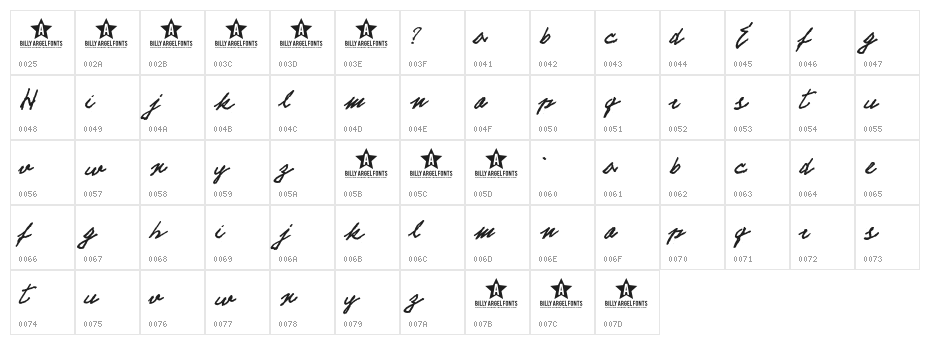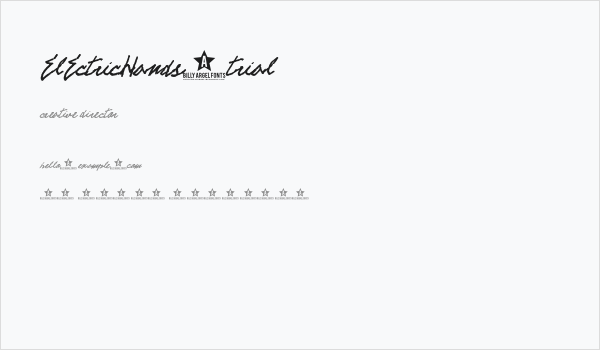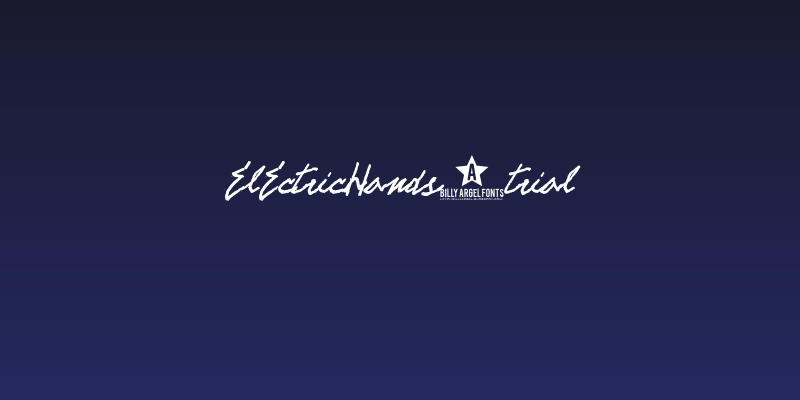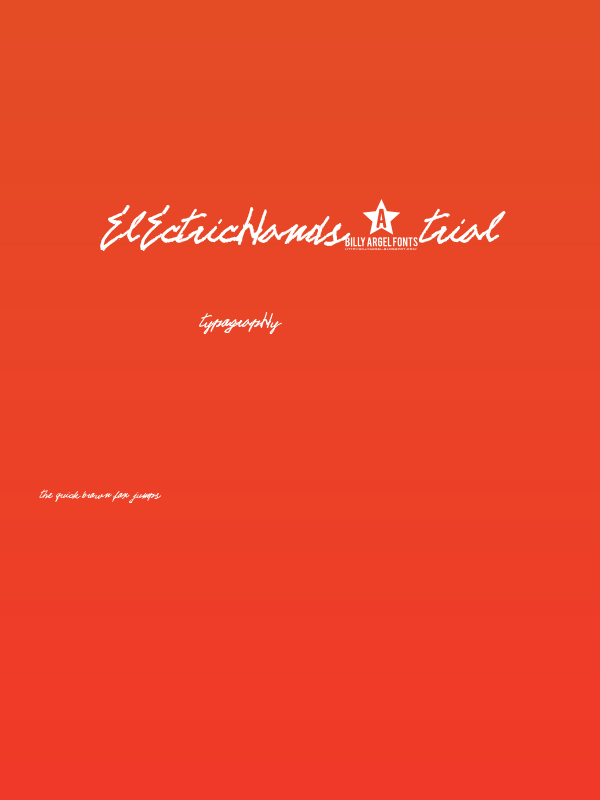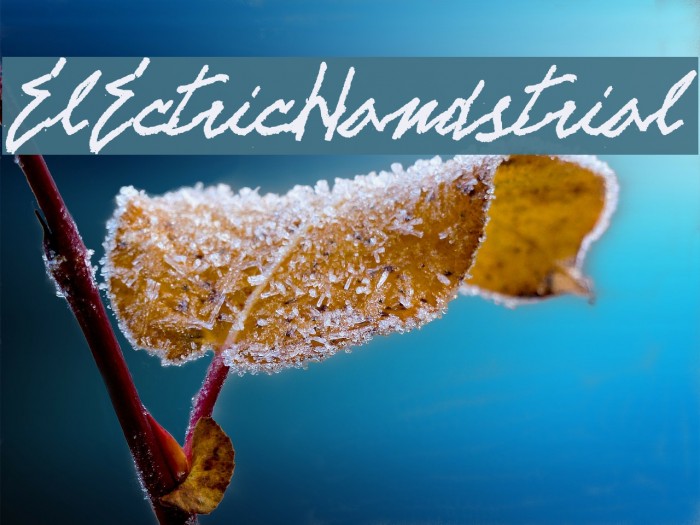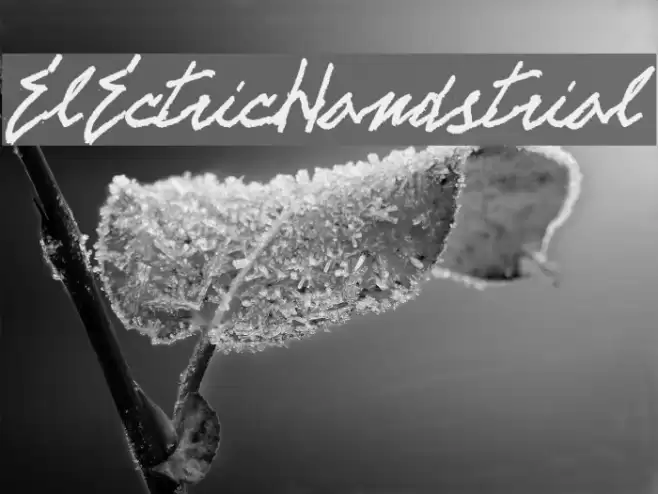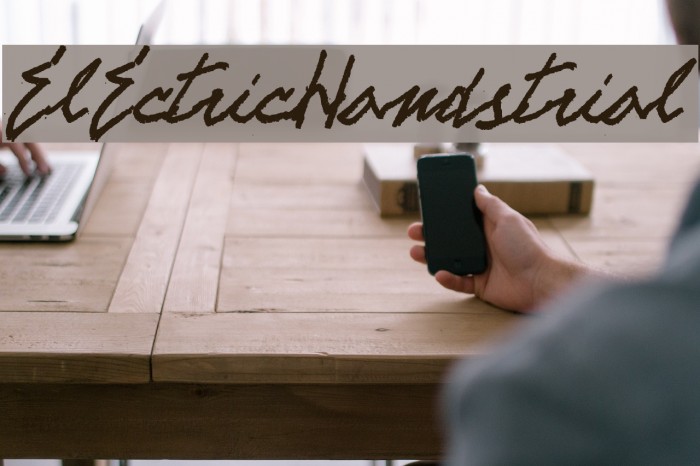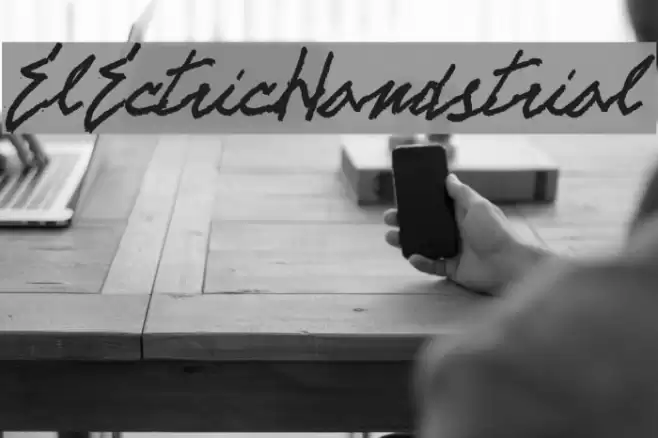
ELECTRICHANDS-trial Font
This font features a dynamic and energetic script style, reminiscent of handwritten text with a bold and expressive flair. The letters are interconnected, creating a fluid and continuous flow that mimics natural handwriting. The strokes are thick and textured, giving the font a rugged and artistic appearance. This style is ideal for projects that require a personal touch or a creative, informal vibe. The font's unique character is enhanced by its textured finish, which adds depth and visual interest.
| Proposed Projects | Ideal for branding, invitations, greeting cards, and artistic projects that require a personal and creative touch. |